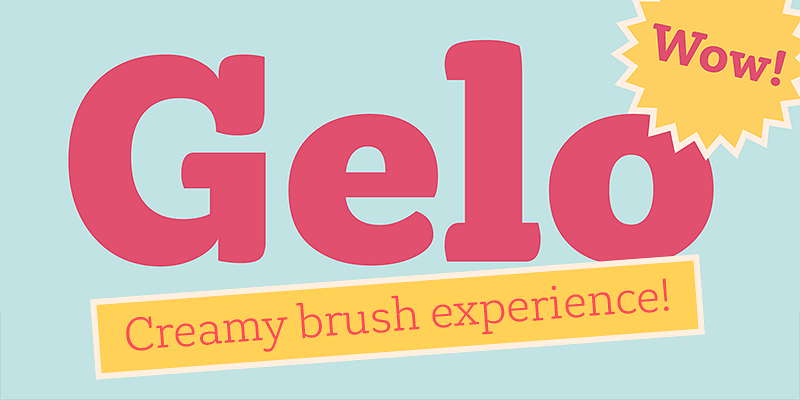
Gelo specimen
Gelo
Gelo combines the elegance and playfulness of brush lettering with the structure and versatility of a slab serif to create an expressive and versatile design which works great in print and digital.